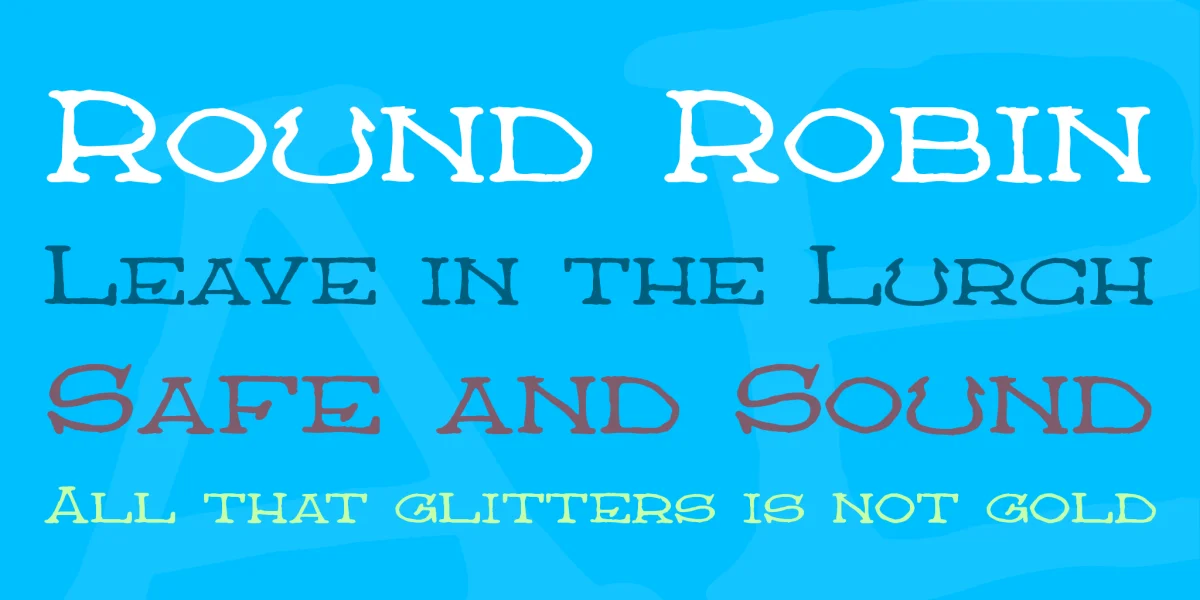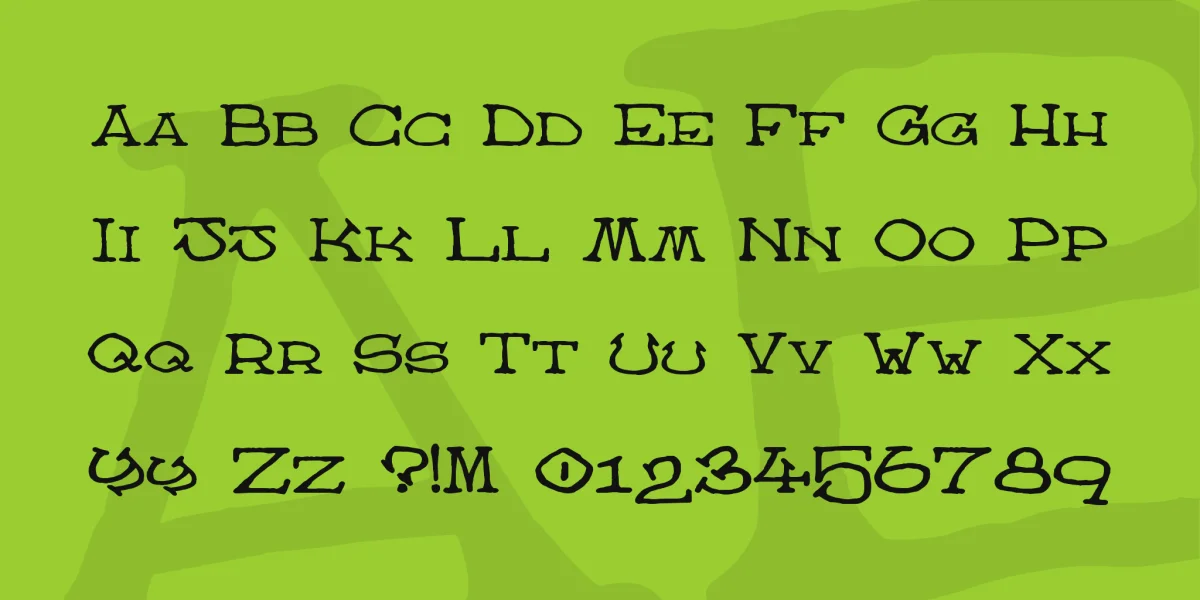
This is one of those "necessity is the mother of invention" fonts. I'm doing some fantasy maps for work, and I needed a wide, hand-drawn Roman font with a quirky style to use for the kingdom labels. Couldn't find what I wanted, so I drew it . . . Since I'll probably also be using Apple Butter in the same project, I went for a related line style, and I like the results a lot. I drew the font with a Sharpie on cheap graph paper, to achieve lots of rough ink-bleed to get the edges how I wanted them. I think I also permanently stained the table at a fast-food place downtown. Oops.